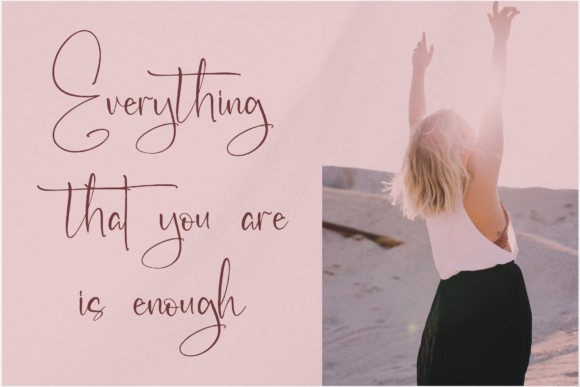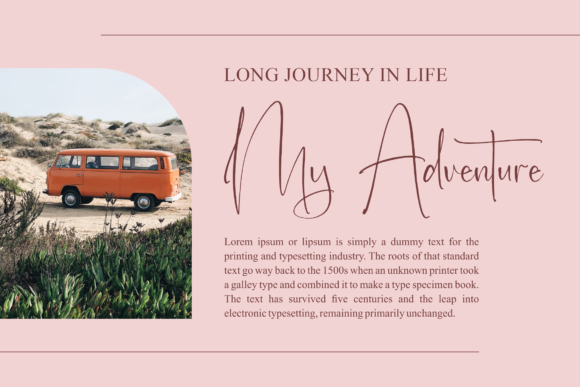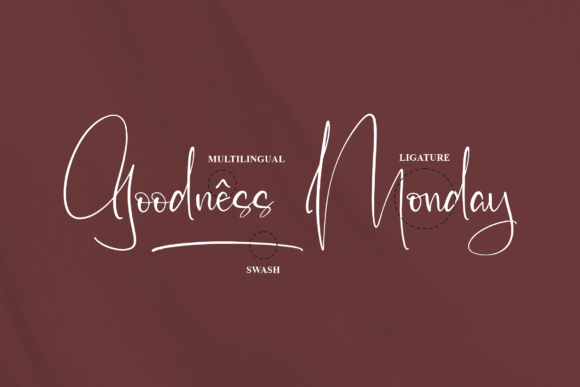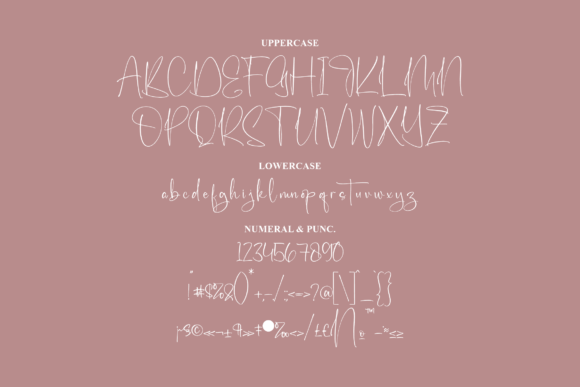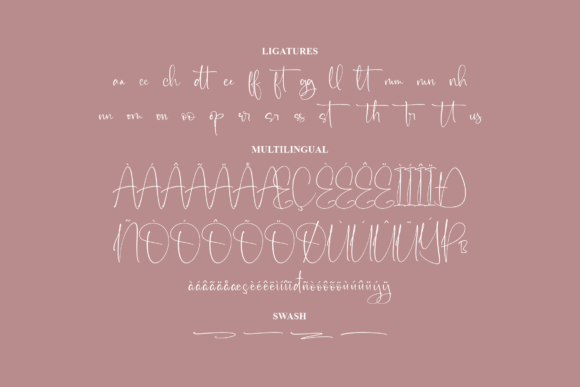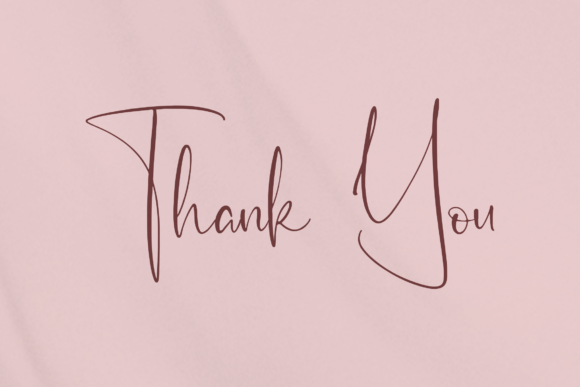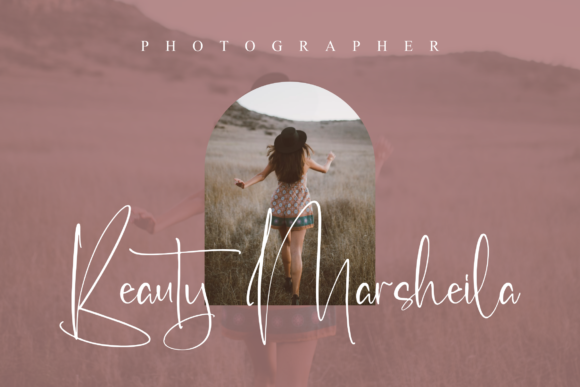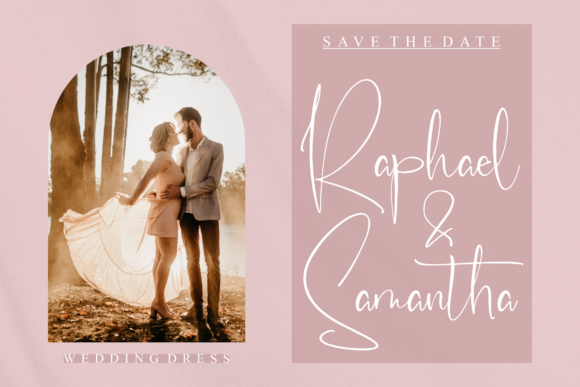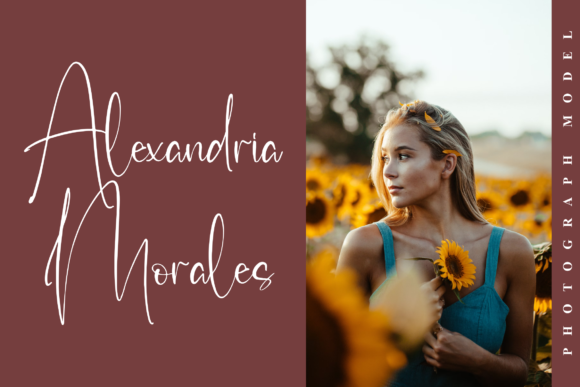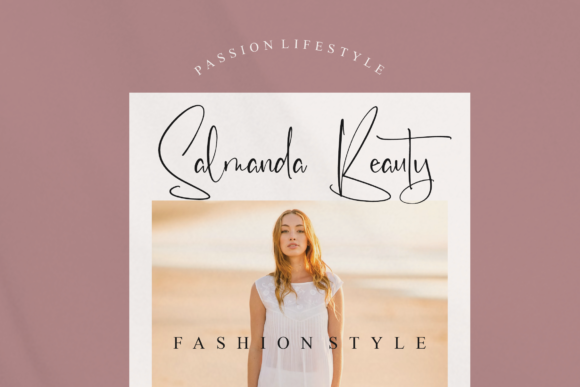
Anchestra Font
“Anchestra is not just a font; it’s a work of art. This casual and relaxed handwritten font is a testament to the beauty of typography. With its unique style and character, Anchestra is designed to make your work stand out. It’s more than just a typeface; it’s a tool for creating stunning visuals that captivate and inspire.
One of the standout features of Anchestra is its versatility. It is perfect for a wide range of projects, from logos and branding to homeware designs, photography, watermarks, special events, and more. Whether you’re a professional designer working on a major project or a hobbyist creating personalized items, Anchestra is the font for you.
But Anchestra is not just versatile; it’s also fashionable. With its modern and stylish design, Anchestra is a font that stays ahead of the trends. It’s a font that makes a statement, a font that stands out. Whether you’re creating a logo for a cutting-edge fashion brand or designing a poster for a trendy event, Anchestra is the font that will help you make a statement.
Moreover, Anchestra is designed to look extraordinary in a variety of contexts. Whether it’s on a business card, a website, a billboard, or a t-shirt, Anchestra shines. Its unique style and character make it a versatile and adaptable font that can elevate any design.
But the beauty of Anchestra goes beyond its design. It’s also a font that’s easy to use. With its clear and legible characters, Anchestra is a font that’s easy to read and understand. This makes it a great choice for designs that need to communicate clearly and effectively.
In conclusion, Anchestra is a superb handwritten font that’s perfect for any project. With its unique style and versatility, it’s a font that can make any design stand out. Whether you’re a professional designer or a hobbyist, Anchestra is a font that’s worth checking out.”